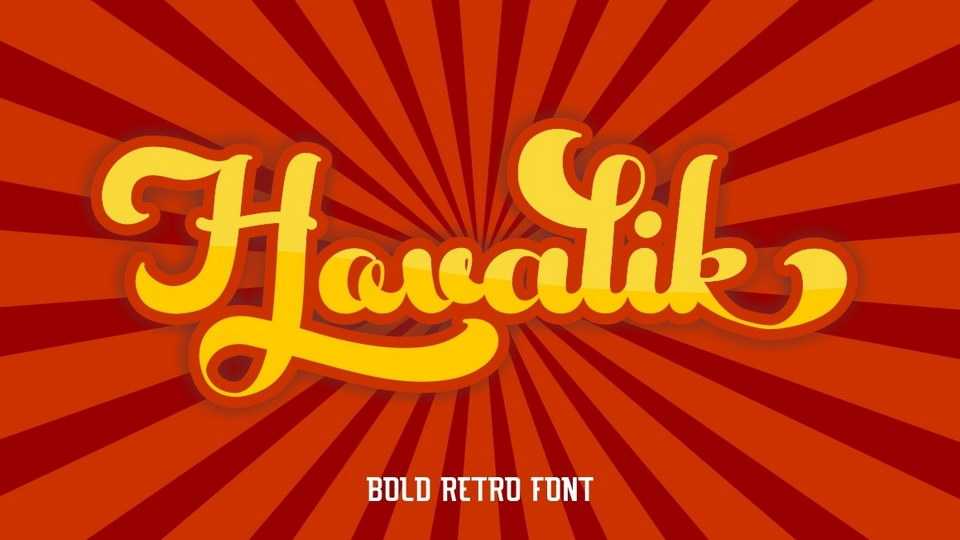
Hovalik Script Font › Fontesk – Fonte Grátis
Download Hovalik font, a bold retro script typeface that is perfect for crafters, designer and all creative people. Hovalik font is suitable for crafting, SVG designs, logotype creation, lettering compositions, wedding invitations and more.